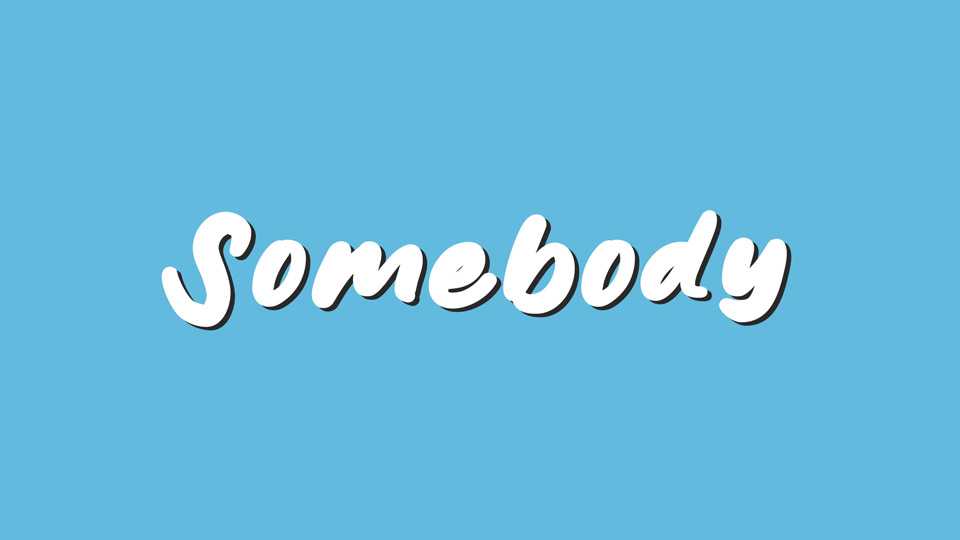
Download Somebody font, a simple typeface to created to get a realistic hand-made look and feel. This adorable handwriting font is perfect for designing the cutest quotes, posts, and graphics for Pinterest and Instagram.